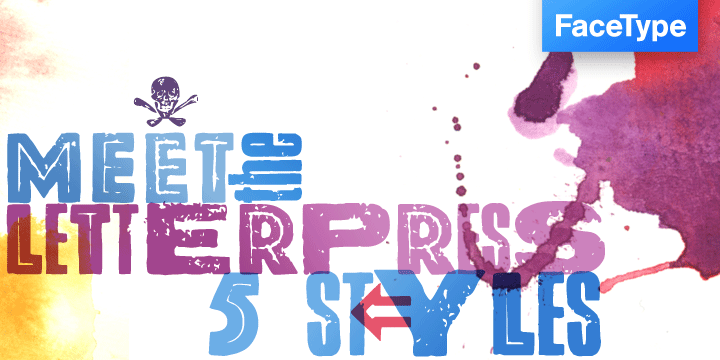
The Letterpress Font is incredibly versatile, making it a fantastic choice for a wide array of design projects that aim to evoke a sense of vintage authenticity, handcrafted charm, and a tactile, industrial aesthetic. Imagine it bringing a rugged, honest feel to branding for artisanal products, making craft beer labels pop with character, or adding a distinctive, aged touch to posters for local markets and events. It's also fantastic for creating unique wedding invitations with a rustic flair, enhancing editorial layouts for vintage-inspired magazines, and designing captivating signage that stands out with its genuine, textured appeal. Its inherent warmth and robust character make it perfect for any project striving to communicate durability, heritage, and a connection to traditional craftsmanship.
What makes Letterpress Font so exciting is its unique ability to simulate the charming imperfections and tactile qualities of traditional letterpress printing. It often features subtle ink bleeds, slightly uneven edges, or a textured appearance that gives it an immediate sense of authenticity and bespoke craftsmanship, as if each character was pressed individually. This font doesn't just display text; it tells a story of honest work and timeless design, making your message feel grounded, approachable, and deeply resonant. Its balance of raw visual character and functional clarity ensures that your designs are not only eye-catching but also effectively convey their intended message. It's a typeface that brings an atmosphere of vintage charm and handcrafted integrity to your typography, guaranteeing your projects leave a powerful and memorable impression.
The Letterpress Font family typically includes a variety of weights and stylistic alternatives to provide extensive creative flexibility. While specific options can differ, you can generally expect to find alternatives like Regular, Bold, and potentially a textured or distressed version that enhances its authentic, vintage look. These different weights and stylistic sets allow you to create dynamic visual hierarchies and add nuanced artistic flair to your typography, ensuring a cohesive and thoughtfully designed outcome. This comprehensive family support ensures that whether you need a strong, impactful headline or a subtle, genuine accent, Letterpress Font Free Download offers the perfect elements to bring your unique vision to life.